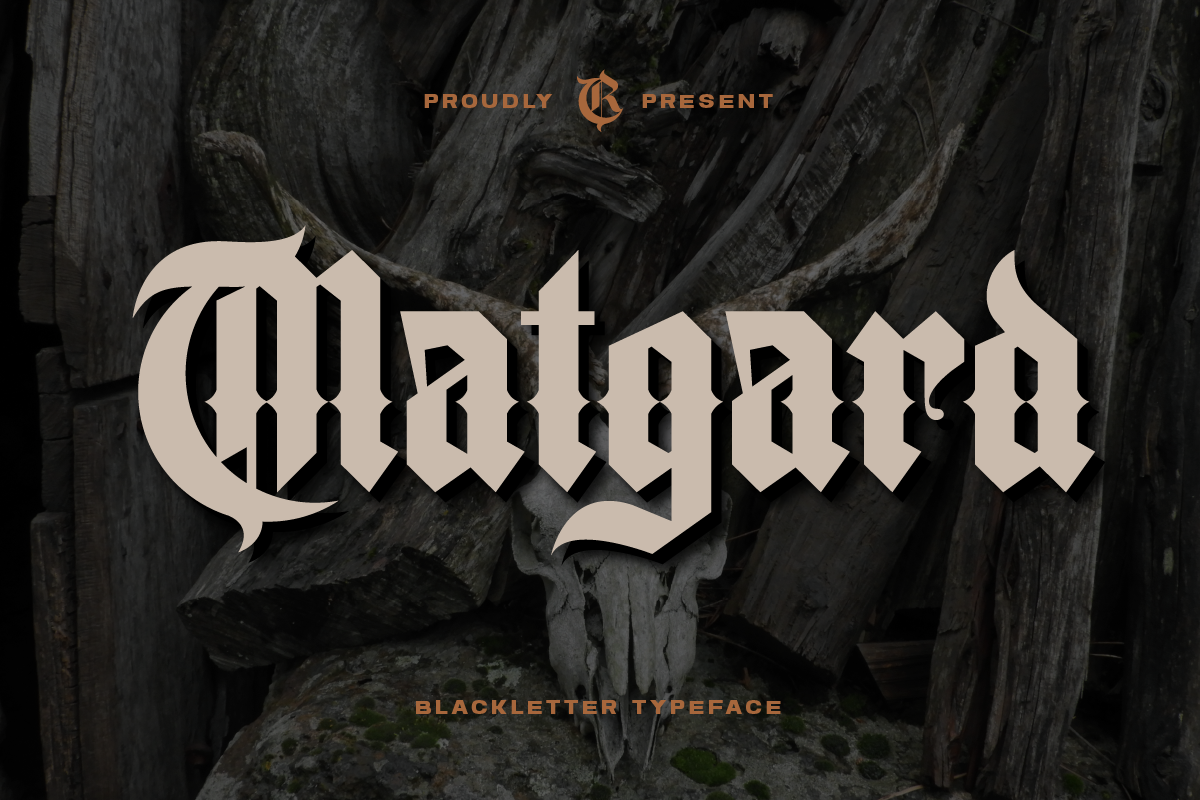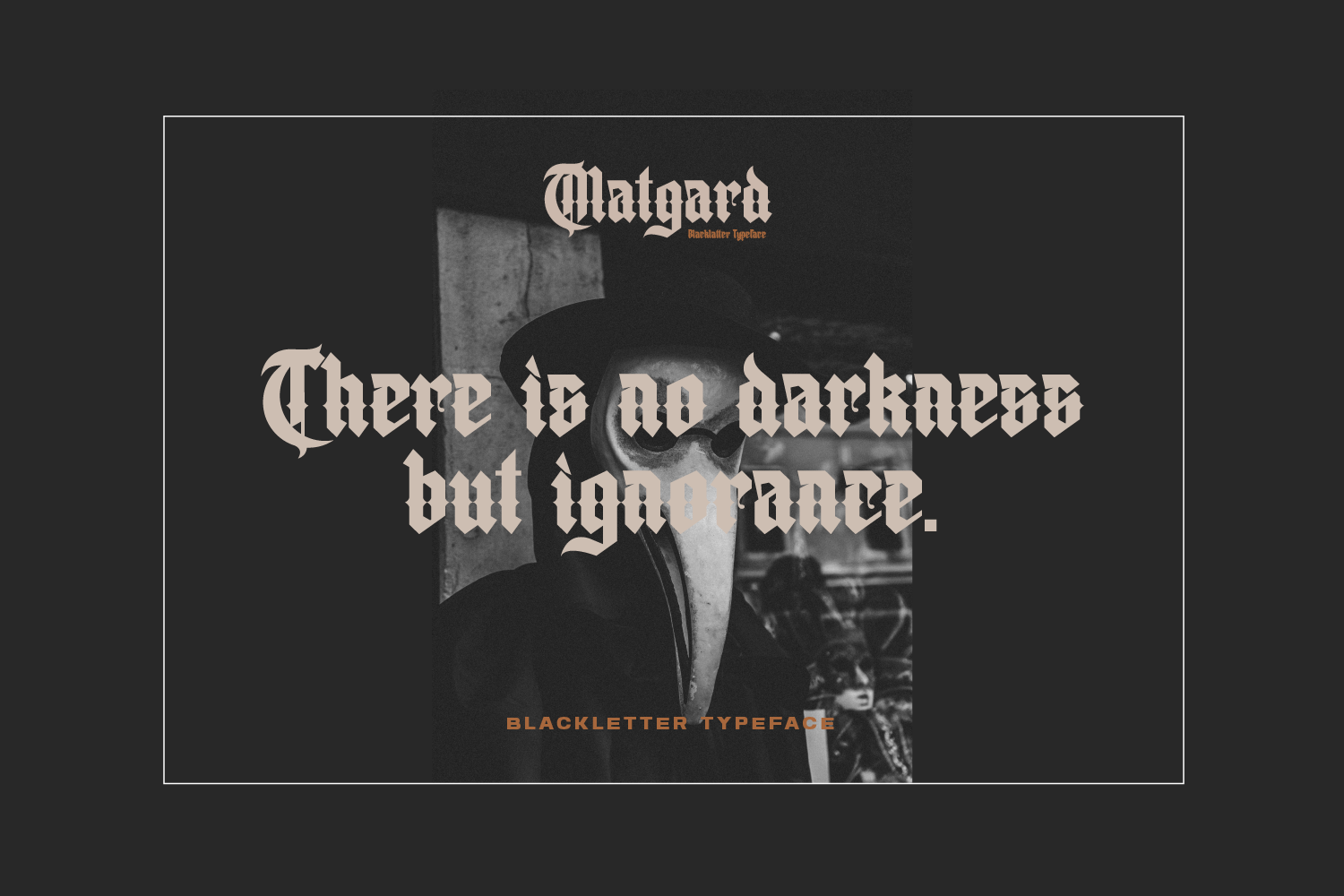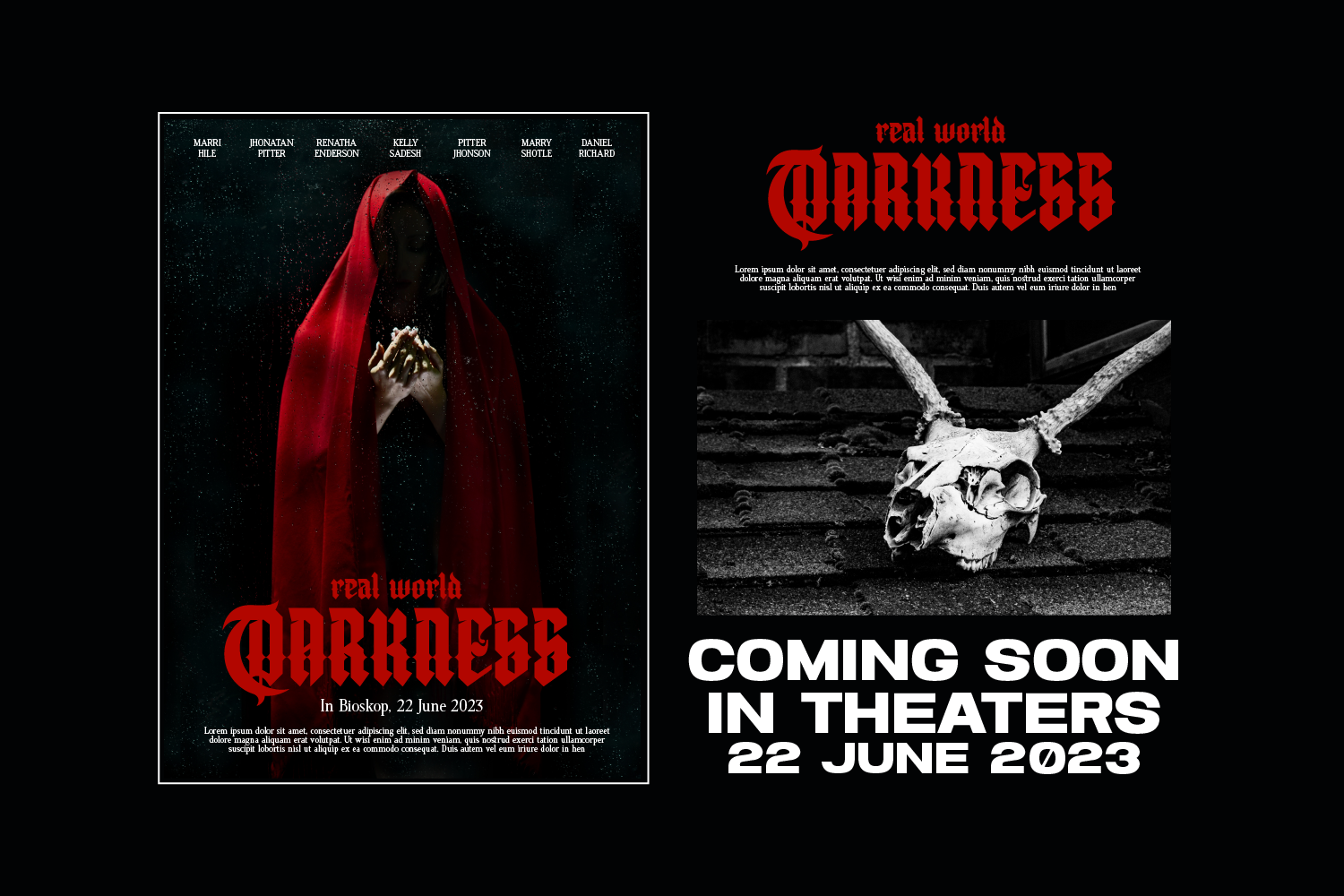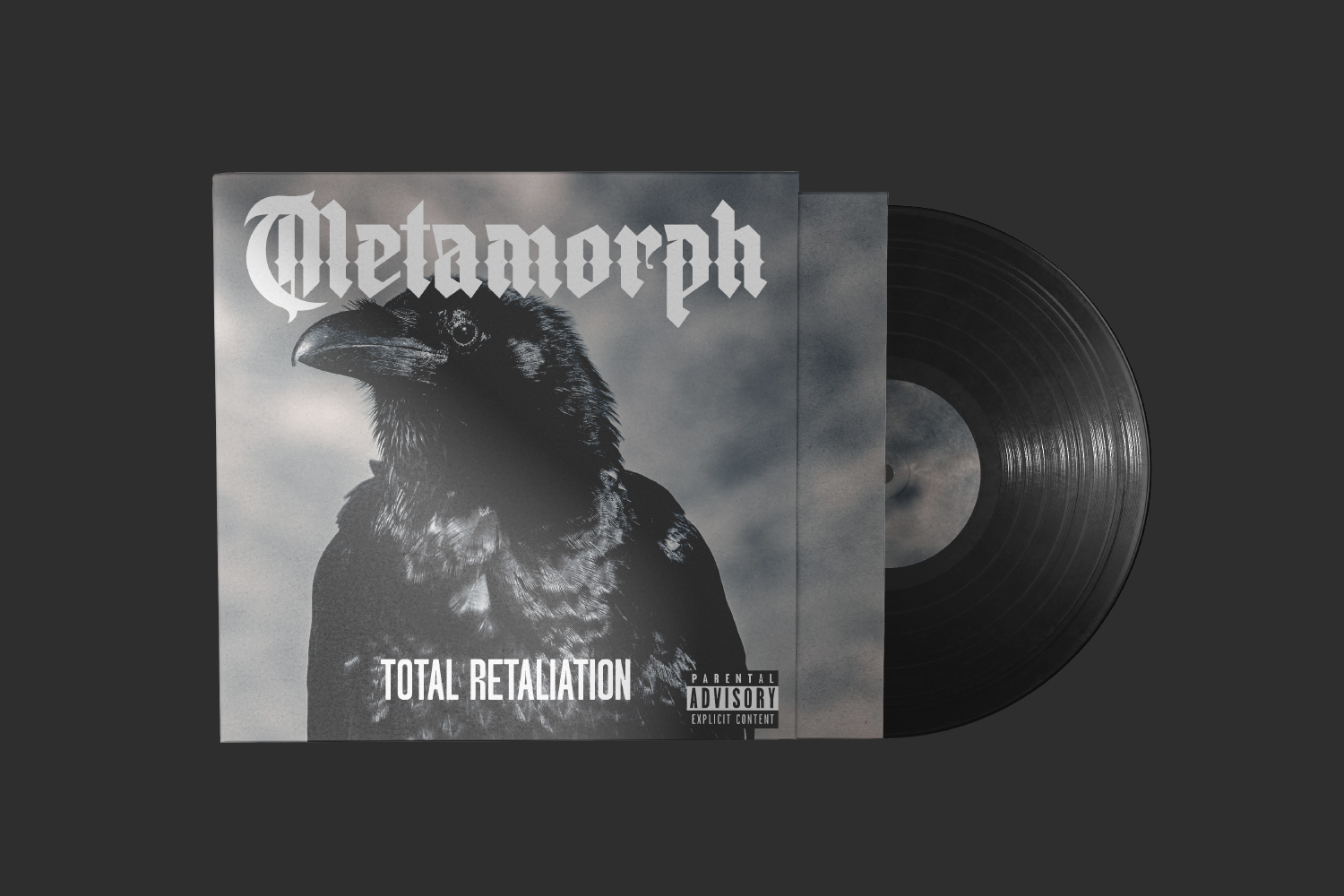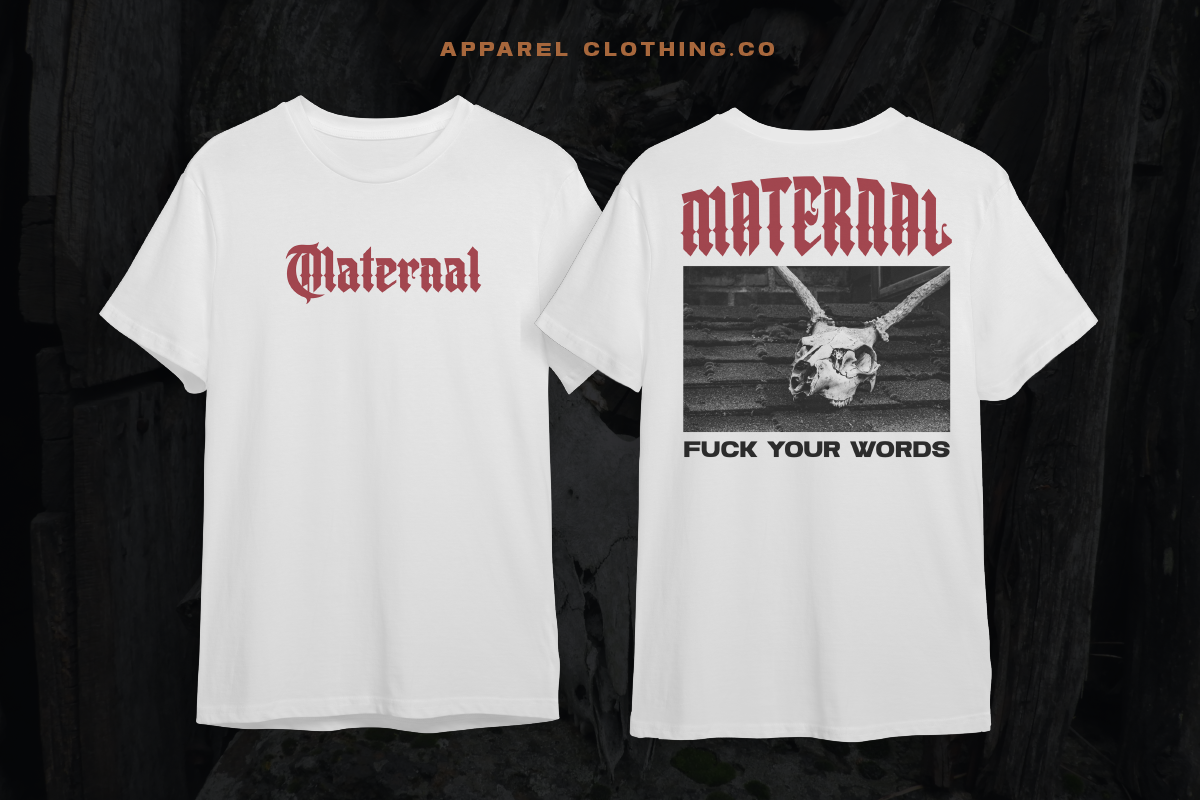
Matgard Free Font
Discover Matgard Free Font a striking high-contrast blackletter typeface that brings a bold and captivating touch to your projects. Unleash your creativity and be inspired to craft something truly unique and modern with this font. Perfect for titles, flyers, greeting cards, product packaging, book covers, printed quotes, logotypes, clothing designs, branding, and album covers, “Matgard” offers a versatile solution to elevate your designs with a touch of sophistication. Stand out from the crowd and make a powerful statement with this remarkable font at your fingertips. This free typeface was designed by a talented Ronny Studio. If you like it don’t forget to check out the full version.